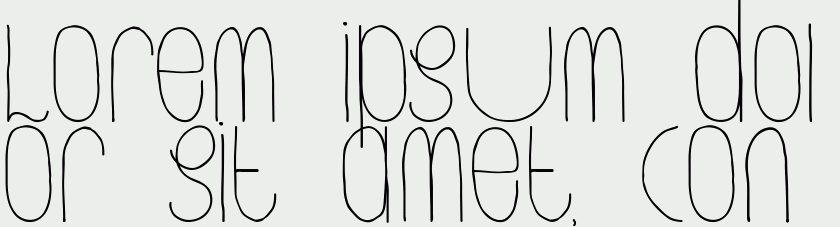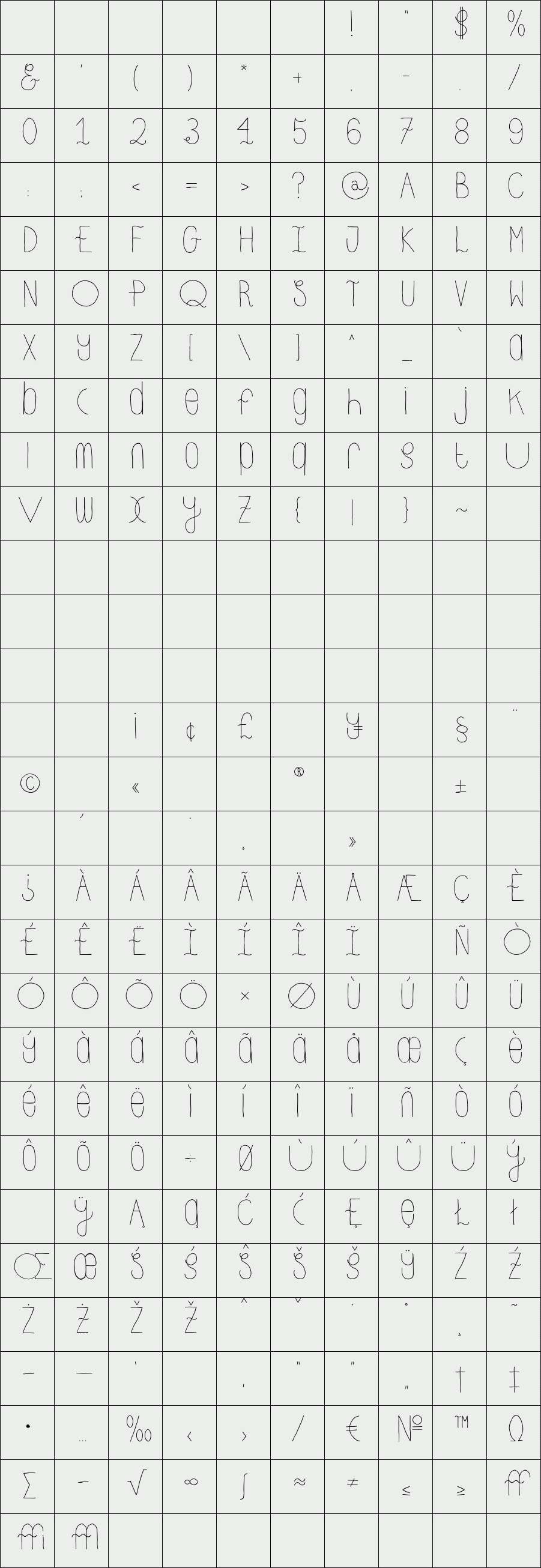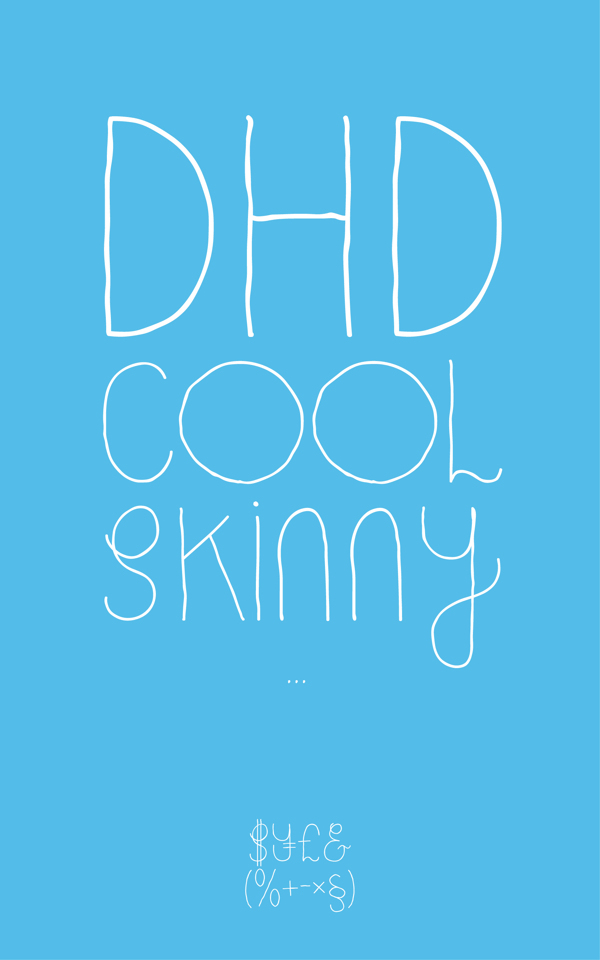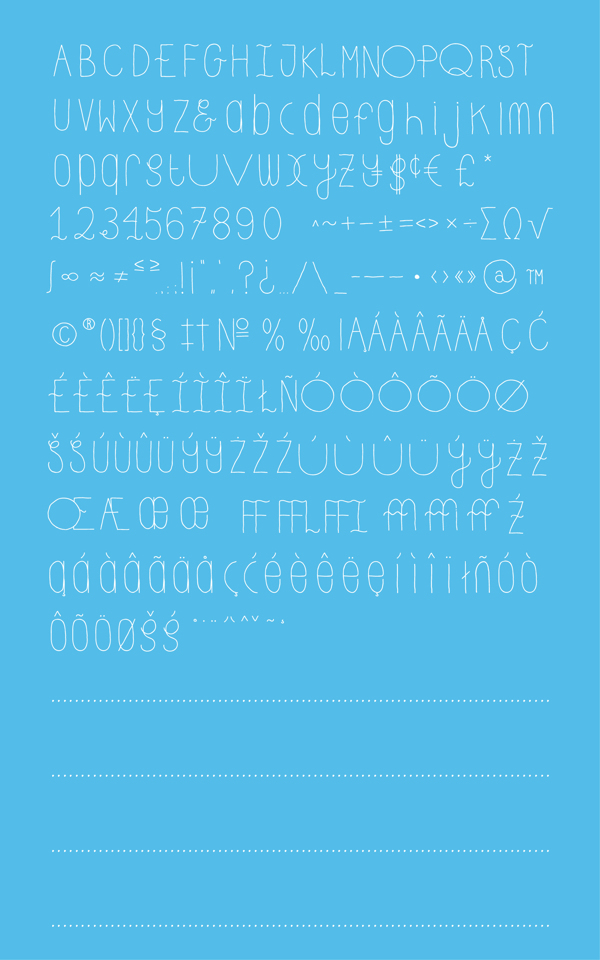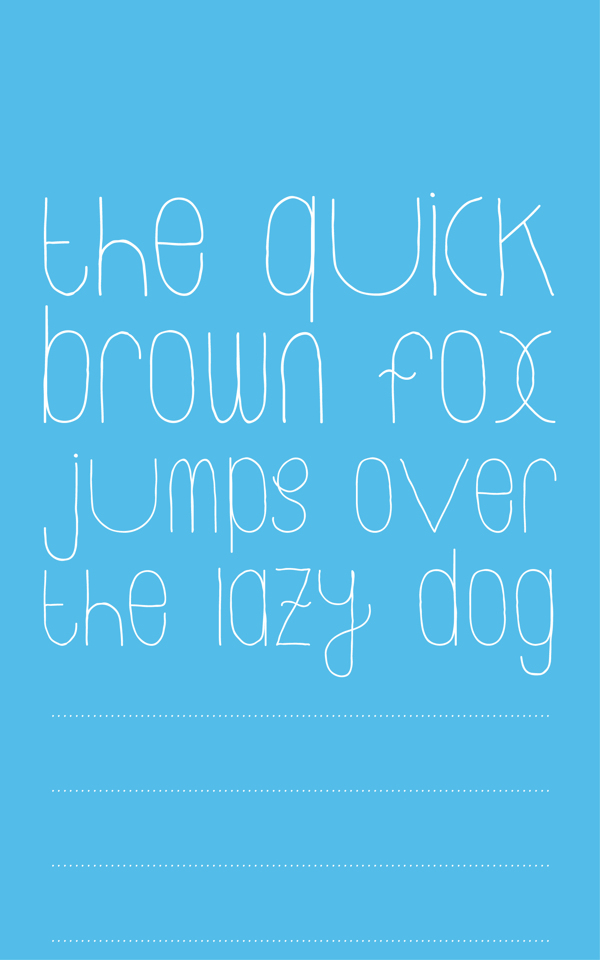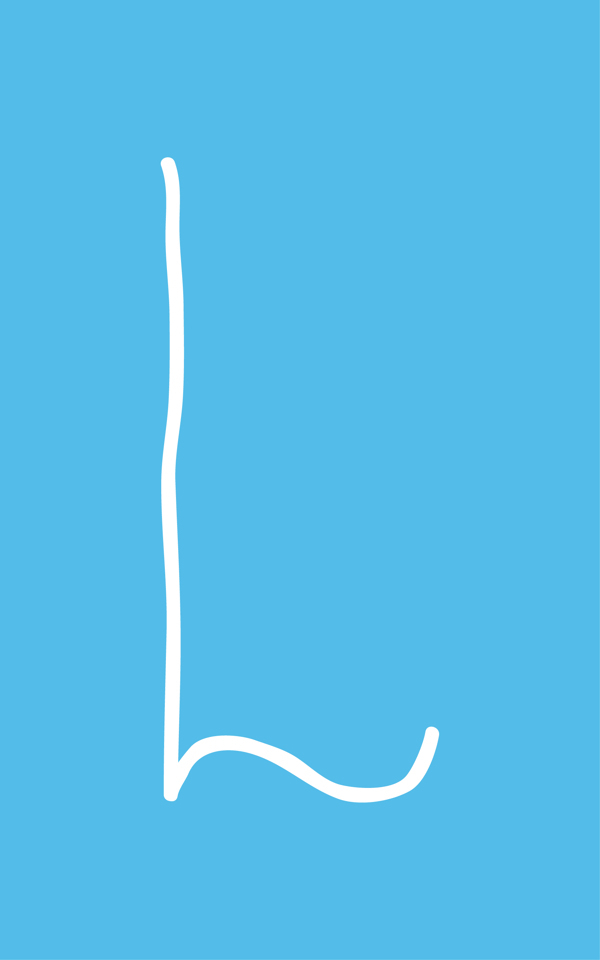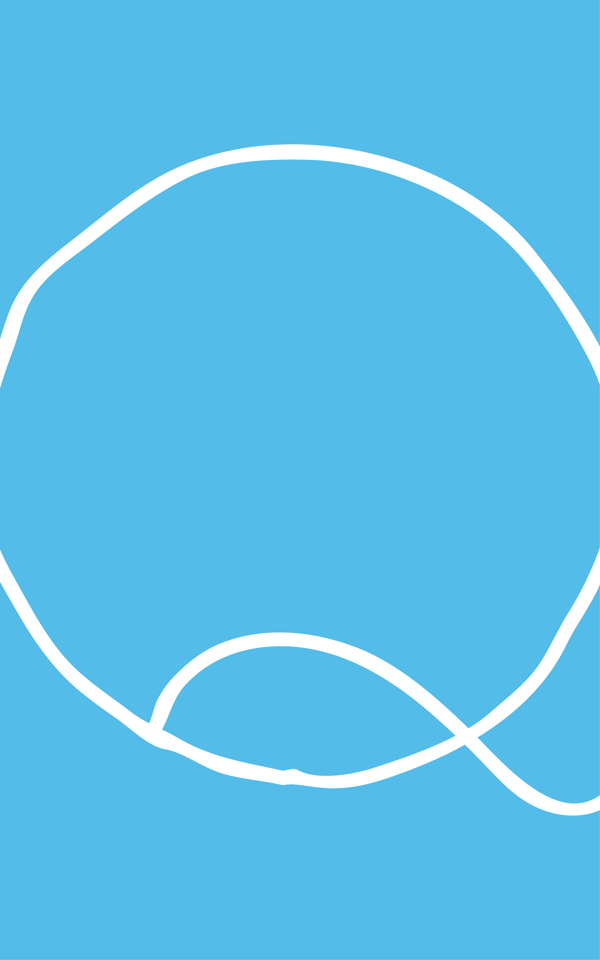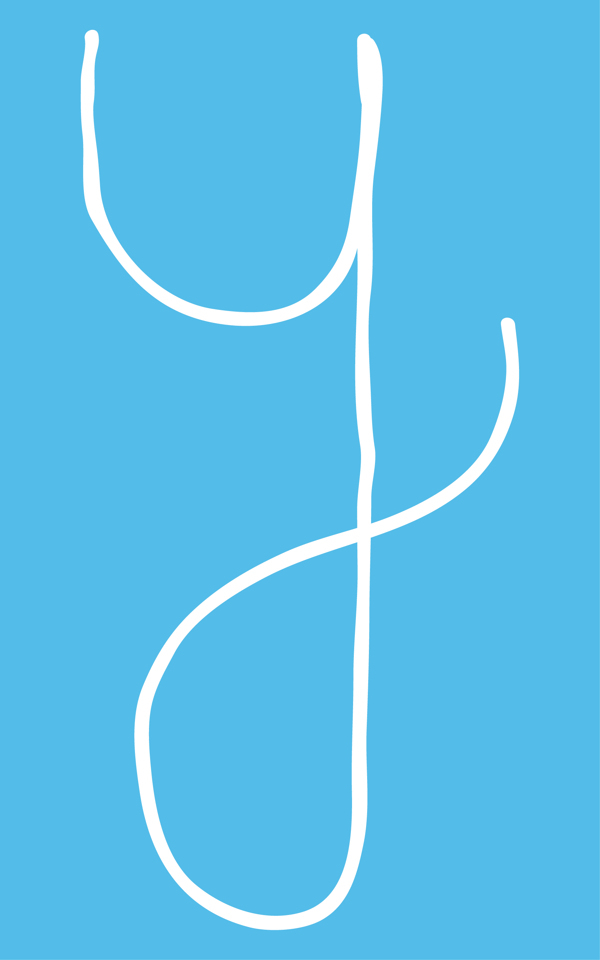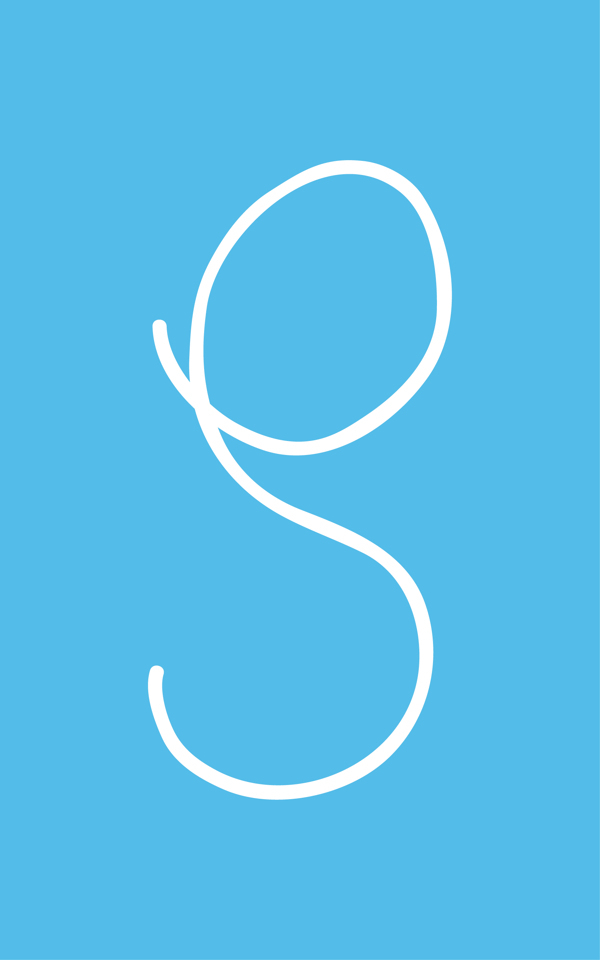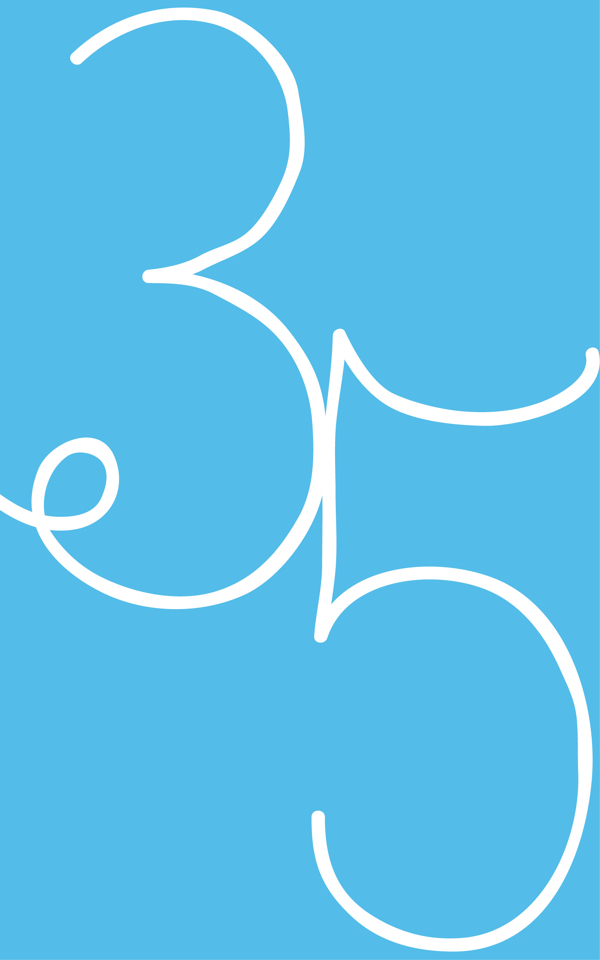
DHD Cool Skinny
It's still cool and regular with some irregularities but much skinnier than his older brother DHD Cool Regular. It has much more glyphs too!